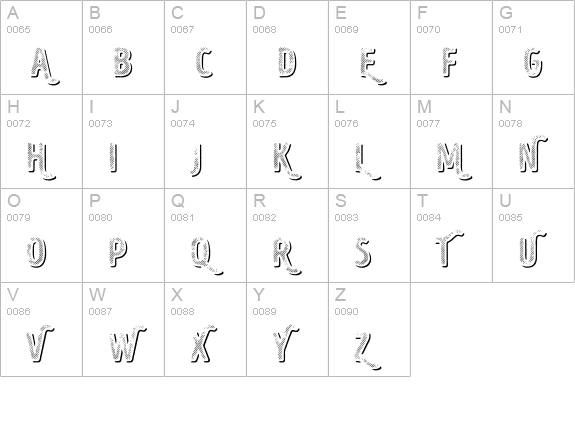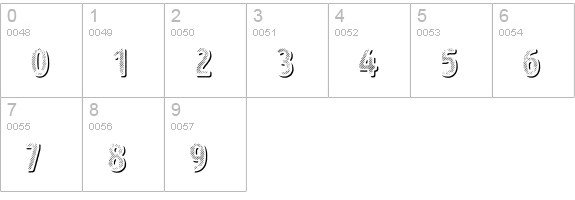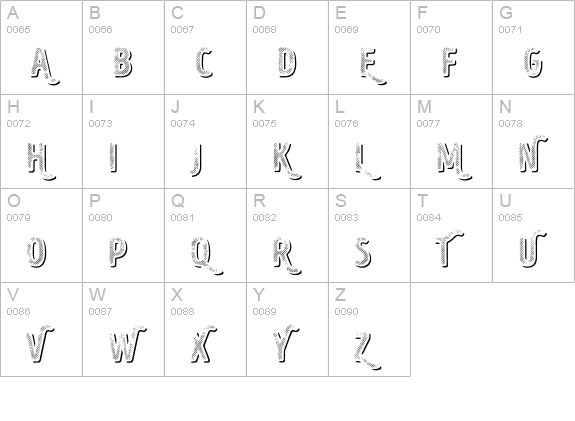
Intro Head H UC L Shade Font Details
The Intro Head H UC L Shade font is a stunning display typeface that exudes elegance and sophistication. Its intricate details and sharp lines make it perfect for creating eye-catching headlines and titles. This font features uppercase letters with a unique shade effect, adding depth and dimension to your designs. Best of all, the Intro Head H UC L Shade font is completely free to download at FontsMarket.com. Whether you're working on a branding project, poster design, or any other creative endeavor, this font will surely make a bold statement. Don't miss out on the opportunity to elevate your designs with this exceptional typeface that is both stylish and impactful. Download it now and let your creativity shine with Intro Head H UC L Shade font.